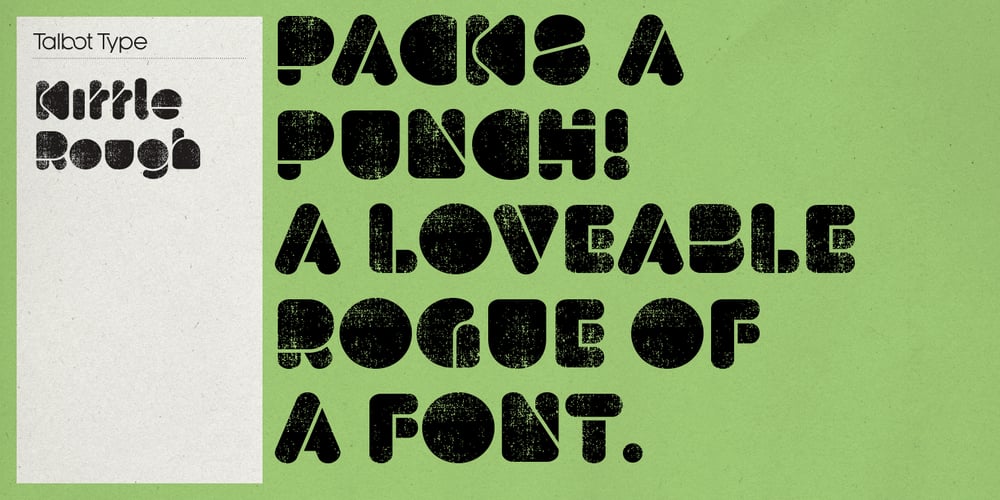
Kittle Rough Font Family was designed by Adrian Talbot and published by Talbot Type. Kittle Rough contains 2 styles and family package options. Kittle Rough is a robust display font with a time-worn texture. It has a strong, pared down look based on bold geometric forms. Loaded with personality, Kittle Rough features a full upper and lower case character set and an extended set of accented characters for Central European languages. It is also available as Kittle Round, with a smooth, clean look.